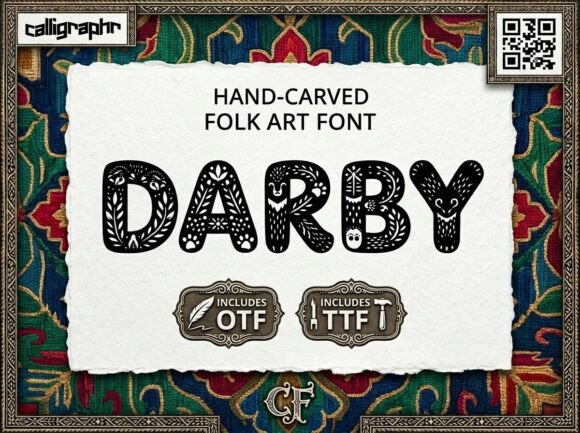
Discover the Whimsical World of Darby Font: A Hand-Carved Folk Art Masterpiece
Step into a world of rich heritage, storybook storytelling, and meticulous craftsmanship with Darby, a beautiful hand-carved folk art font. This extraordinary typeface is a treasure trove of Scandinavian and Slavic craft design, transforming traditional block letter shapes into a gallery of intricate, ultra-chunky display fonts. Each letter is a masterpiece, boasting deep black contours packed with delicate negative-space cutouts that showcase the artisan’s skillful hand.
A Canvas of Intricate Designs
Every single letter in the Darby font acts as an individual canvas, showcasing traditional woodblock carvings that are a testament to the artisan’s attention to detail. You’ll discover blooming floral rosettes, symmetry-perfect botanical leaves, miniature animal totems, woodland creatures, tiny paw prints, and delicate starlight dots. These intricate designs evoke a sense of nostalgia and wonder, transporting you to a world of storybook tales and handmade crafts.
Darby font is an incredibly versatile decorative asset that can elevate a wide range of creative projects. Imagine using it for:
- Children’s fairytale book titles that need a touch of magic and whimsy
- Artisan kitchen and cottagecore branding that requires a sense of handmade luxury
- Cozy winter festival promotional materials that evoke a sense of warmth and nostalgia
- Any project that needs a dash of historical charm and folk art flair
Pairing Darby with Textures and Backgrounds
To truly bring out the beauty of Darby font, pair it with colorful tapestry textures, rich embroidery backdrops, or clean textured paper fields. The contrast between the font’s intricate designs and the background’s texture will add depth and visual interest to your design. The result is a visually stunning combination that exudes an unmistakable sense of handmade luxury and historical charm.
A Shortcut to Creative Success
Darby font is more than just a decorative asset – it’s an extraordinary creative shortcut. With this font, you can instantly add a touch of folk art magic to your designs, saving you time and effort in the process. Whether you’re a designer, crafter, or DIY enthusiast, Darby font is an essential tool that will help you create stunning, one-of-a-kind projects that stand out from the crowd.
Design Inspiration from Scandinavian and Slavic Craftsmanship
Darby font draws inspiration from the rich cultural heritage of Scandinavian and Slavic craftsmanship. The intricate designs and patterns that adorn each letter are a testament to the artisan’s skill and attention to detail. By incorporating Darby font into your designs, you’re not only adding a touch of whimsy and charm but also paying homage to the traditional craftsmanship that inspired it.
Tips for Using Darby Font Effectively
To get the most out of Darby font, here are a few tips to keep in mind:
- Use it sparingly: Darby font is a statement piece, so use it sparingly to avoid overwhelming your design.
- Experiment with colors: Try pairing Darby font with different colors and textures to create a unique look that suits your project.
- Mix and match: Combine Darby font with other fonts and design elements to create a visually interesting and dynamic design.
In conclusion, Darby font is a hand-carved folk art masterpiece that will transport your designs to a world of rich heritage, storybook storytelling, and meticulous craftsmanship. With its intricate designs, endless creative possibilities, and versatility, Darby font is an essential tool for designers, crafters, and DIY enthusiasts looking to add a touch of whimsy and charm to their projects. So why wait? Dive into the enchanting world of Darby font and discover the magic of Scandinavian and Slavic craftsmanship for yourself.